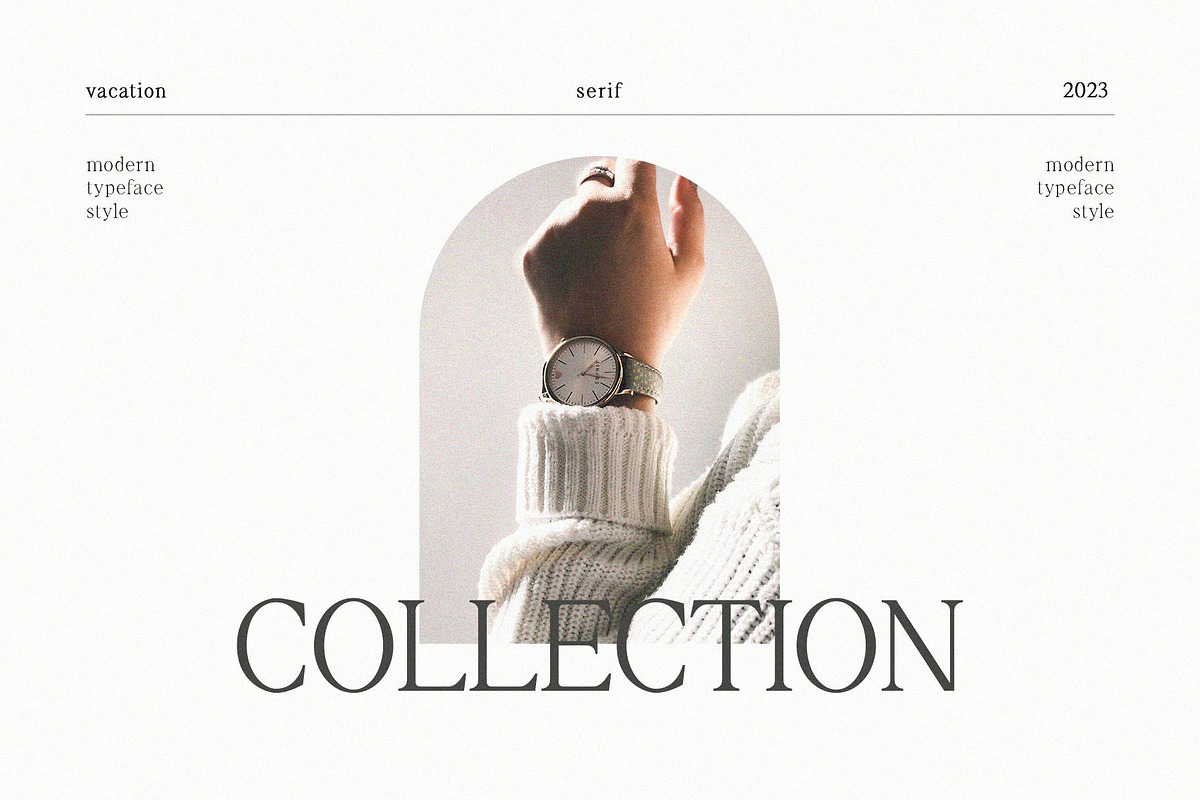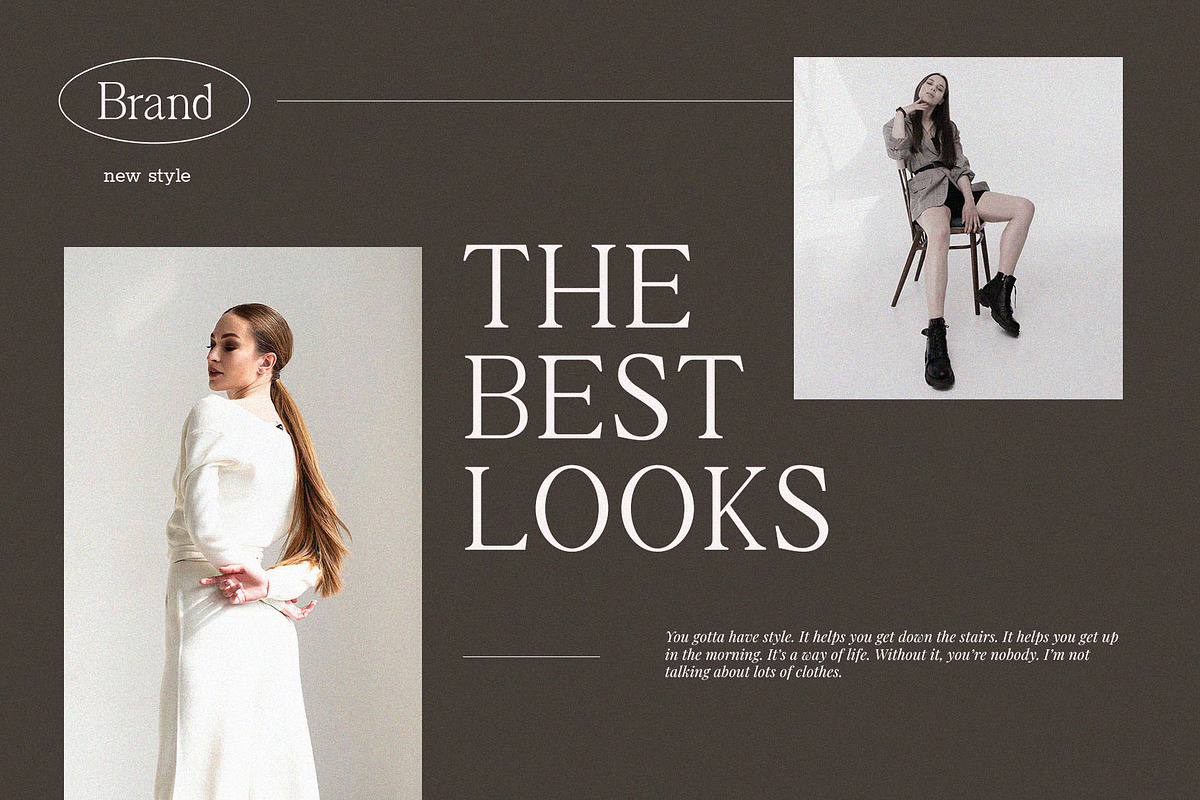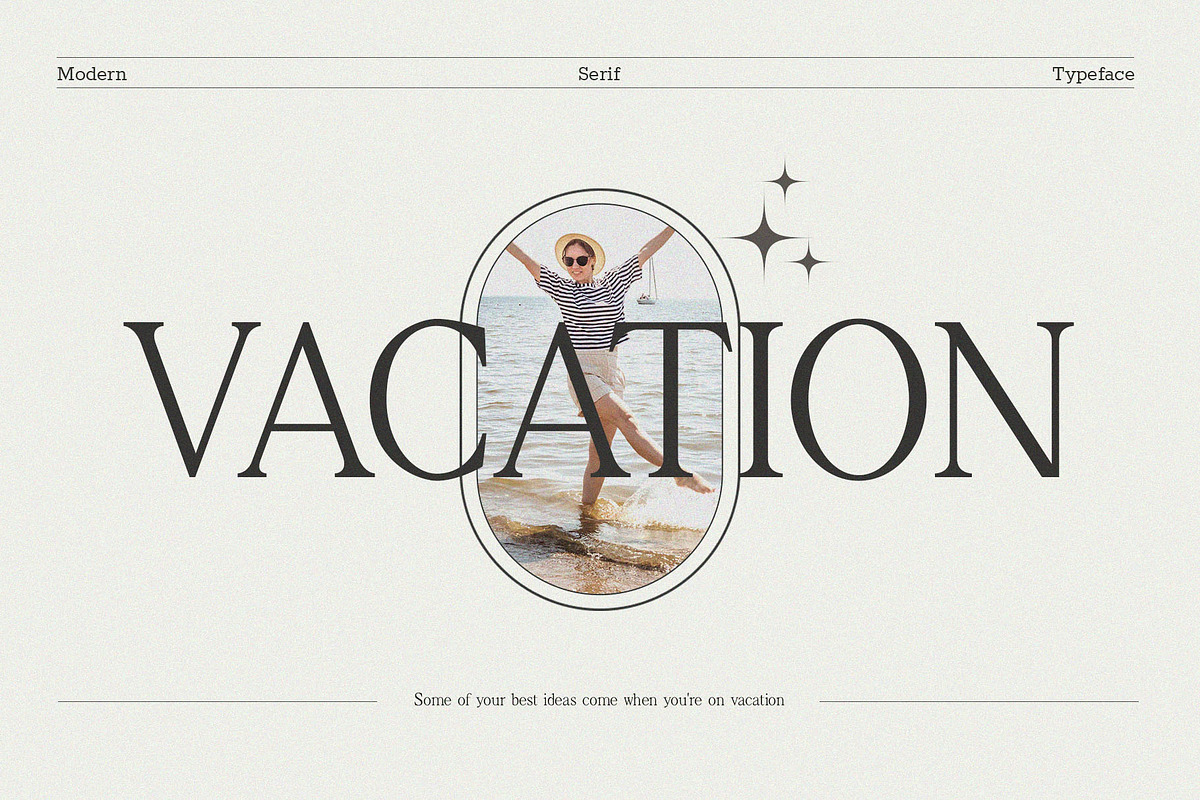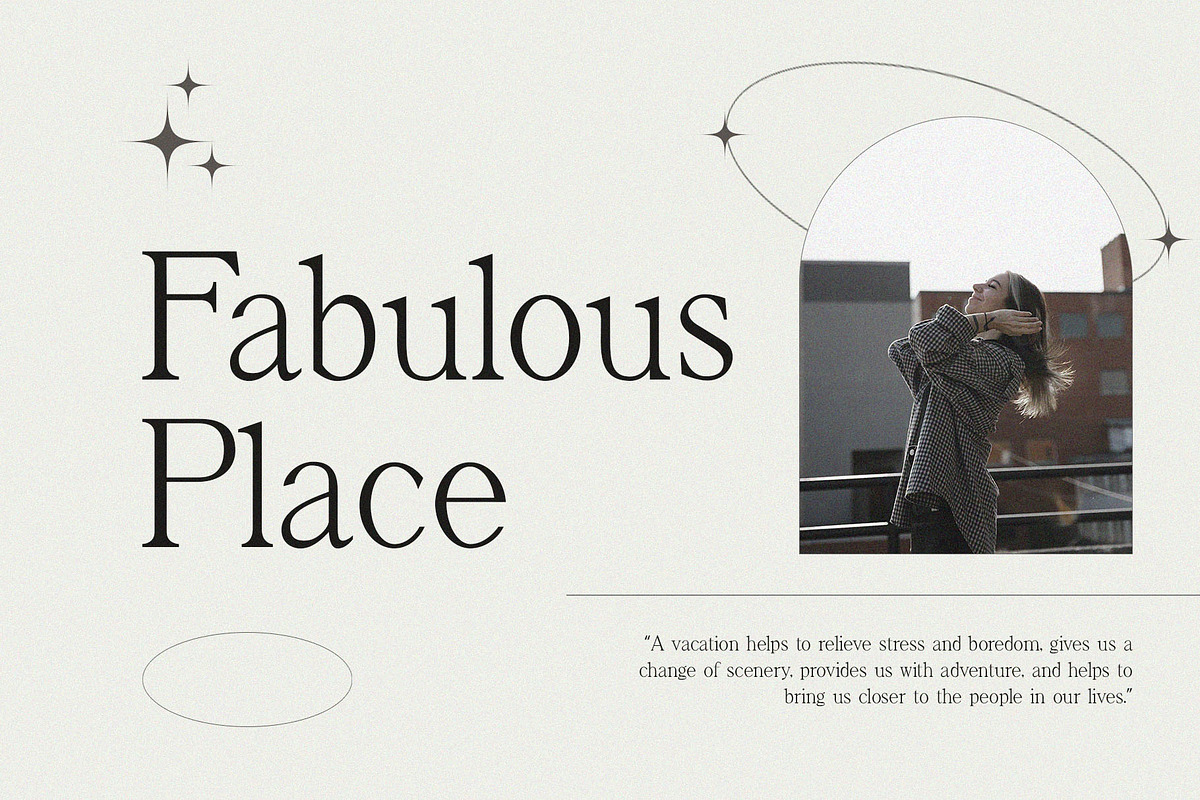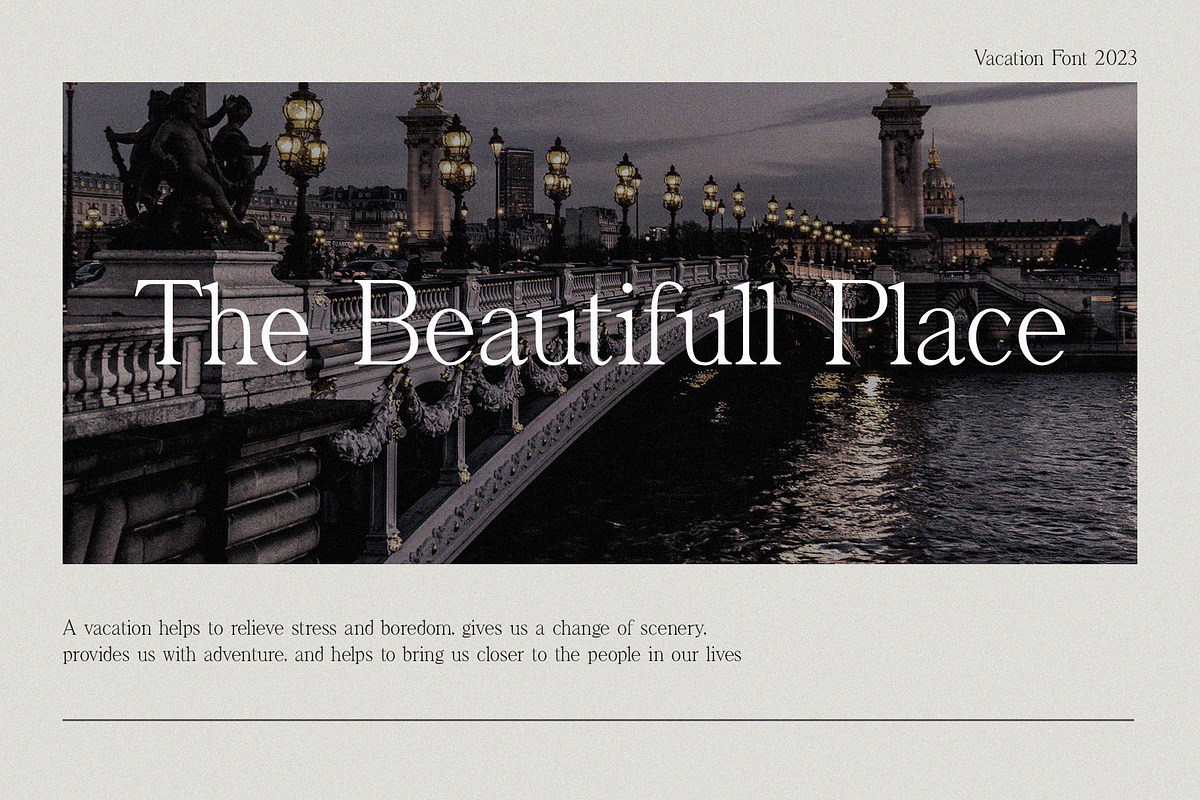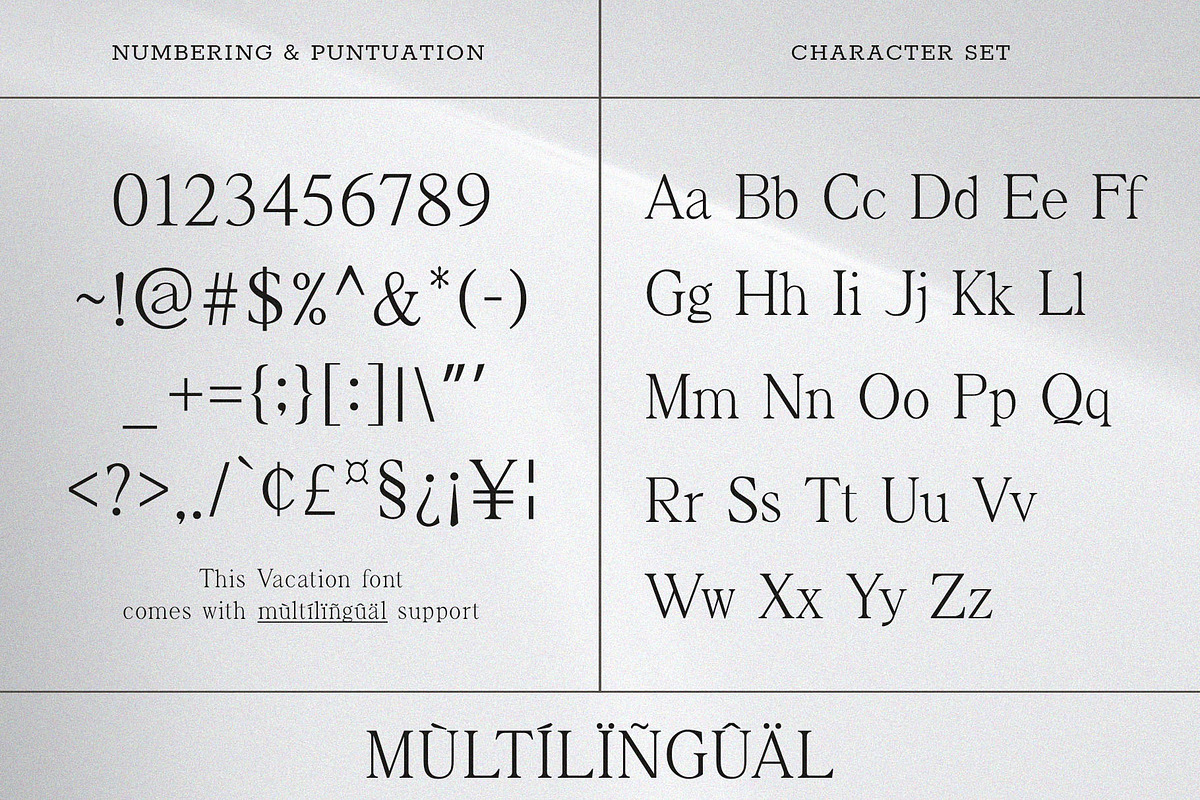
Vacation - Modern Serif Typeface
Introducing 'Vacation' Font:
Introducing Vacation, an elegant and aesthetically pleasing serif font. Remarkably versatile, this typeface is designed to look perfect in a wide variety of contexts. Elevate your designs with the timeless and refined aesthetic of Vacation.
Ideal for:
- Modern Designs
- Beauty and Fashion
- Elegant Creations
- Versatile Applications
- Social Media Designs
- Magazines
- Ready for Creative Expression
- Immaculately Crafted Letters